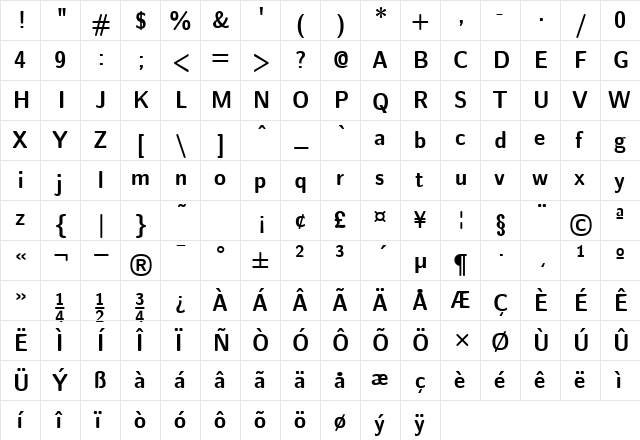
GE Novus Sans Bold
Design Context for GE Novus Sans Typeface
GE Novus Sans takes a measured approach to typography — its balanced proportions and neutral character make it a reliable workhorse for both digital and print work. Its bold stroke weight gives it real presence on the page.